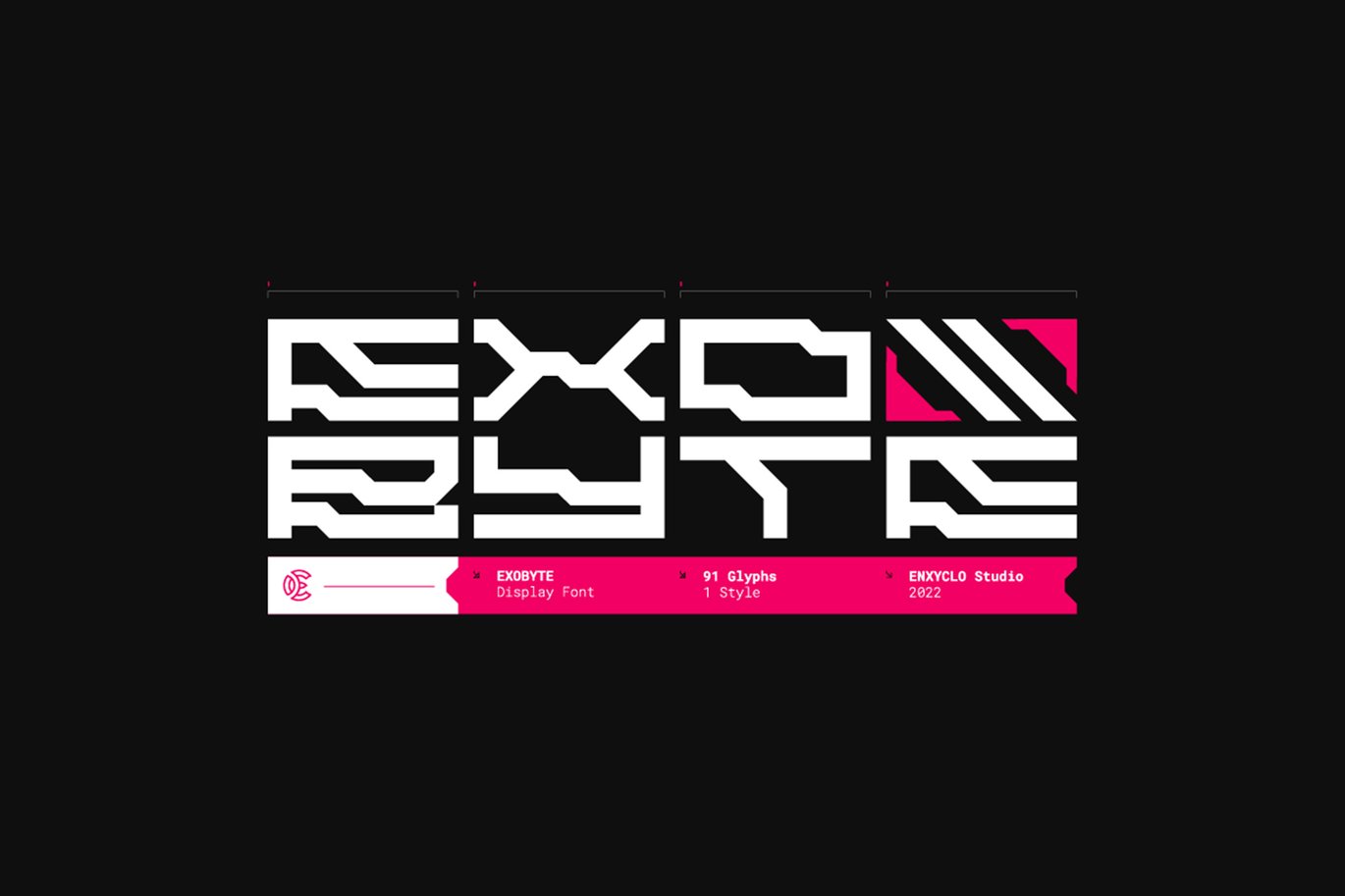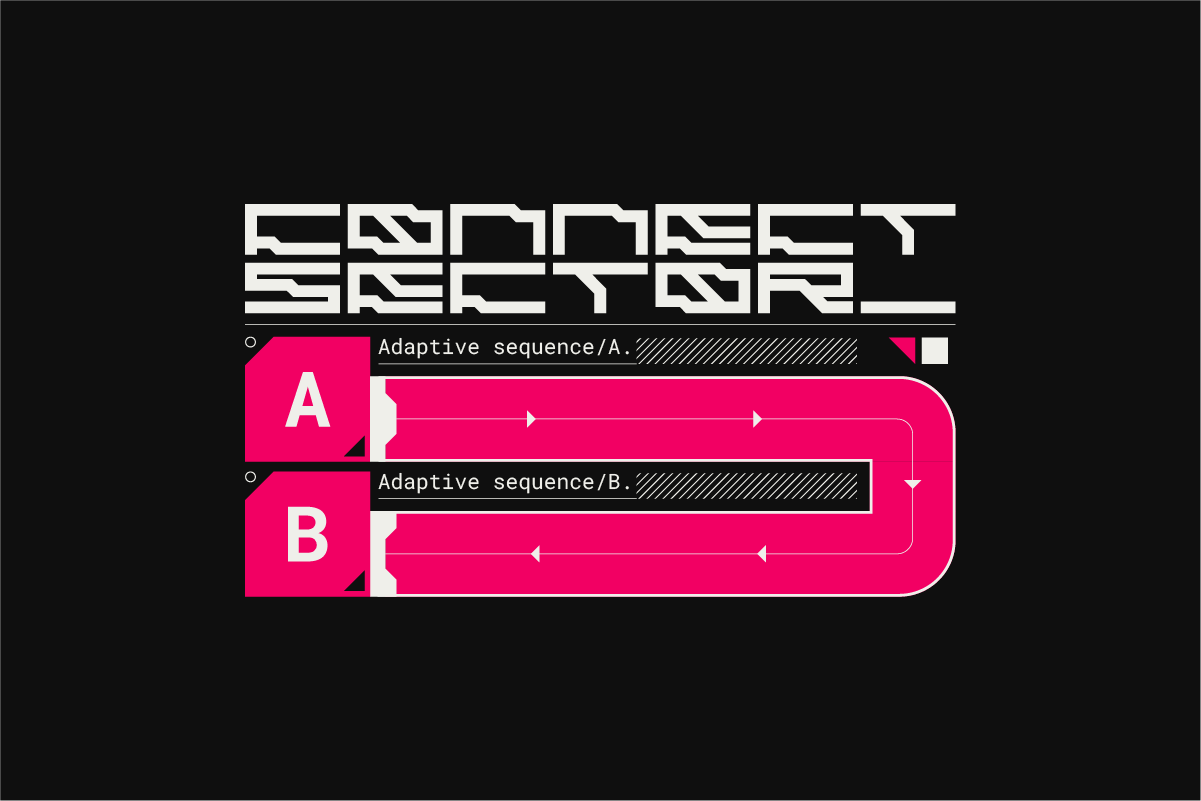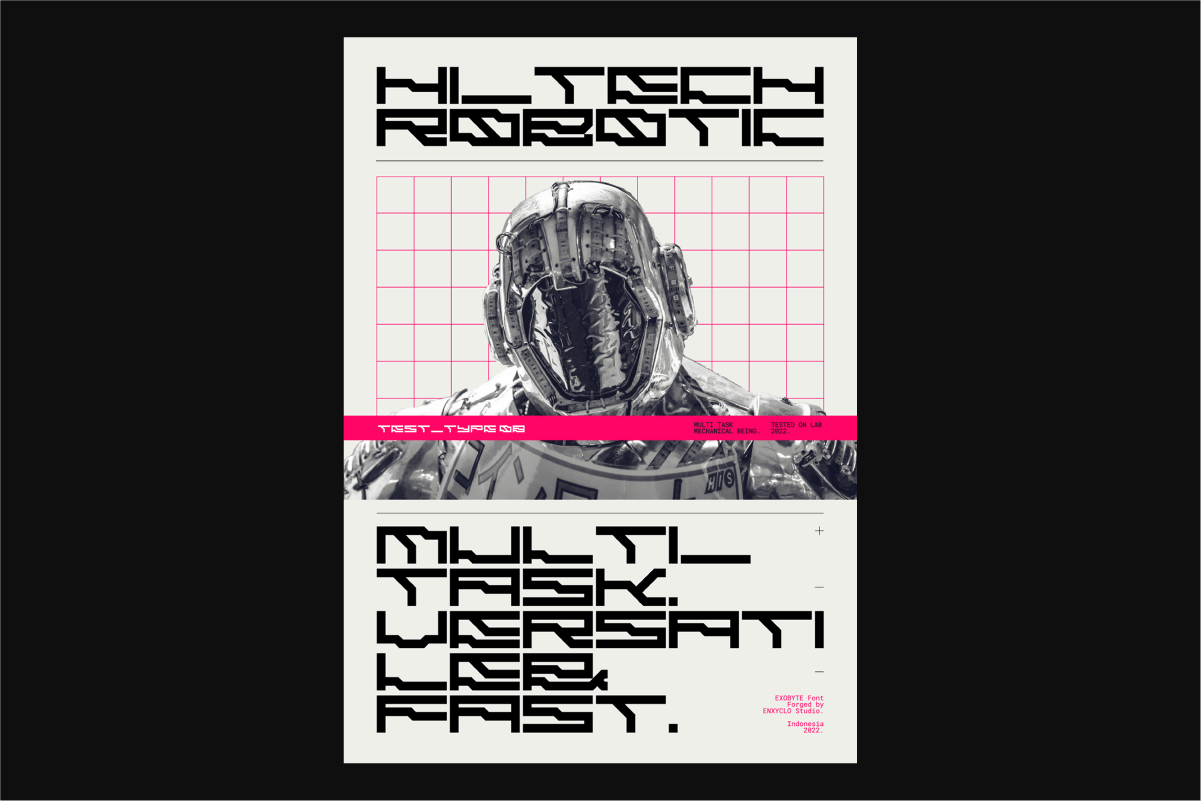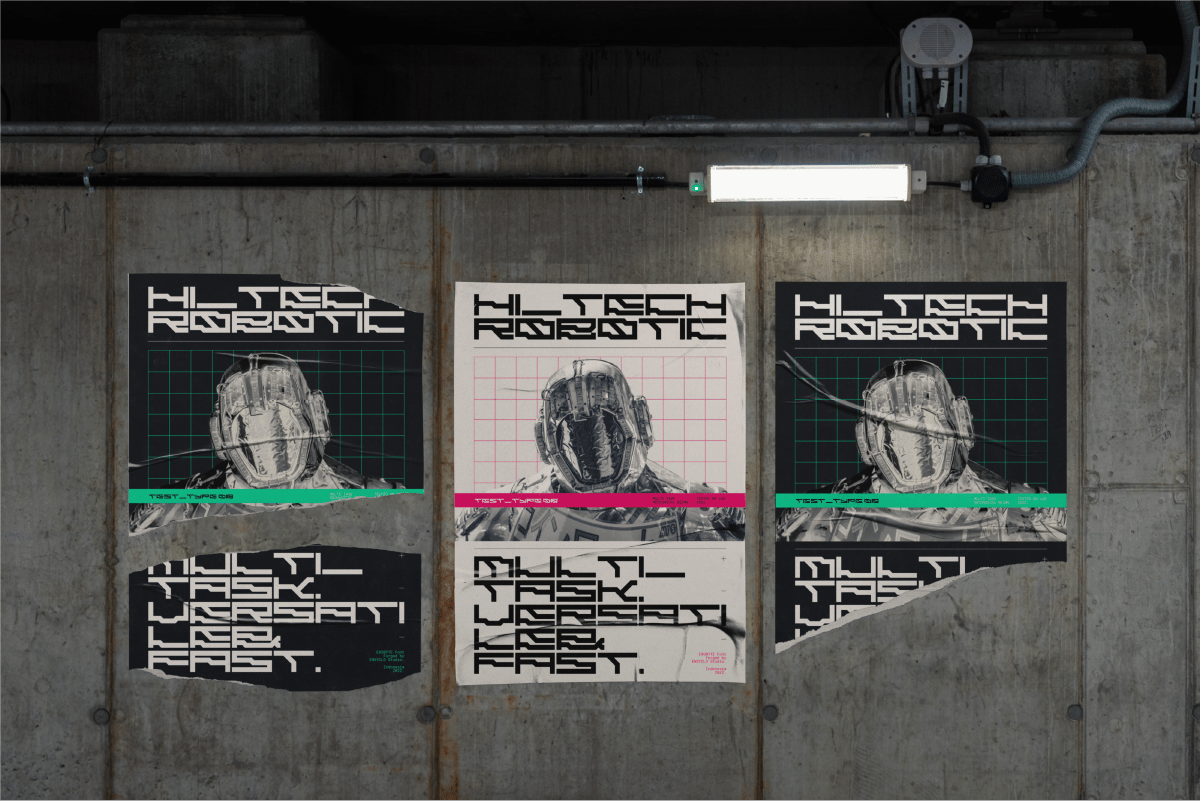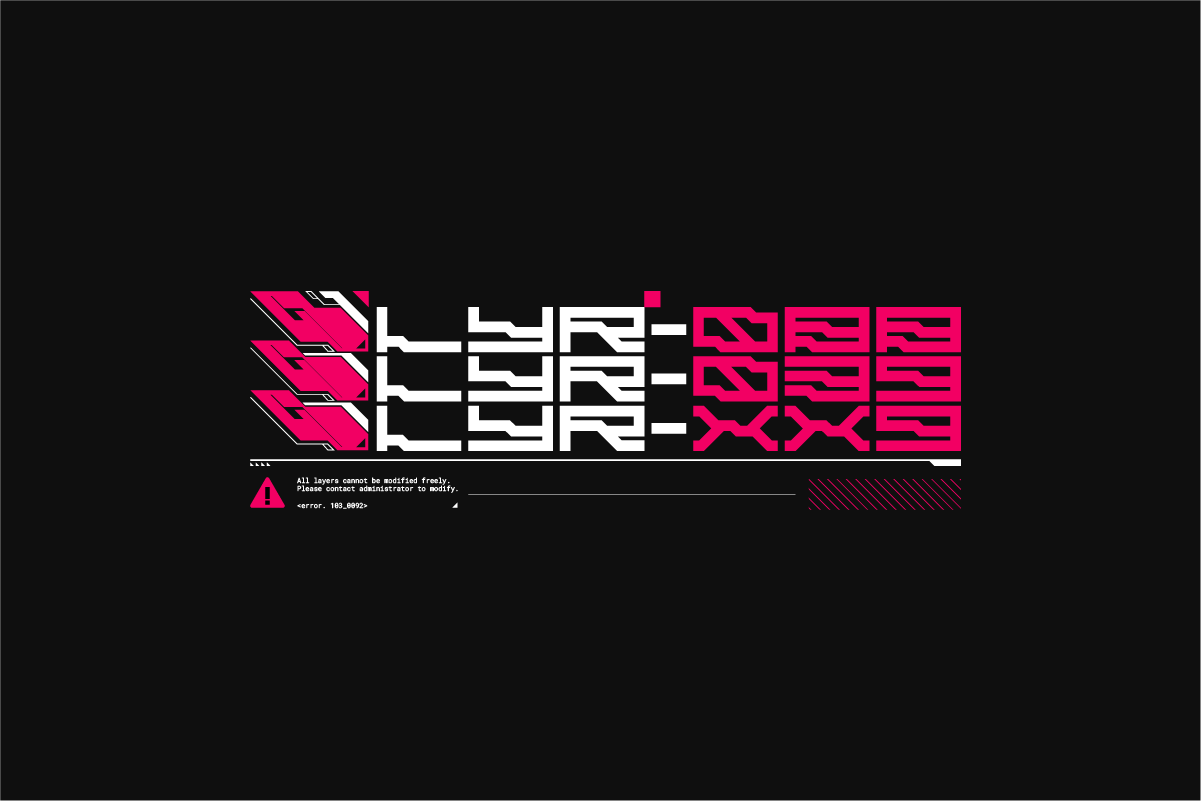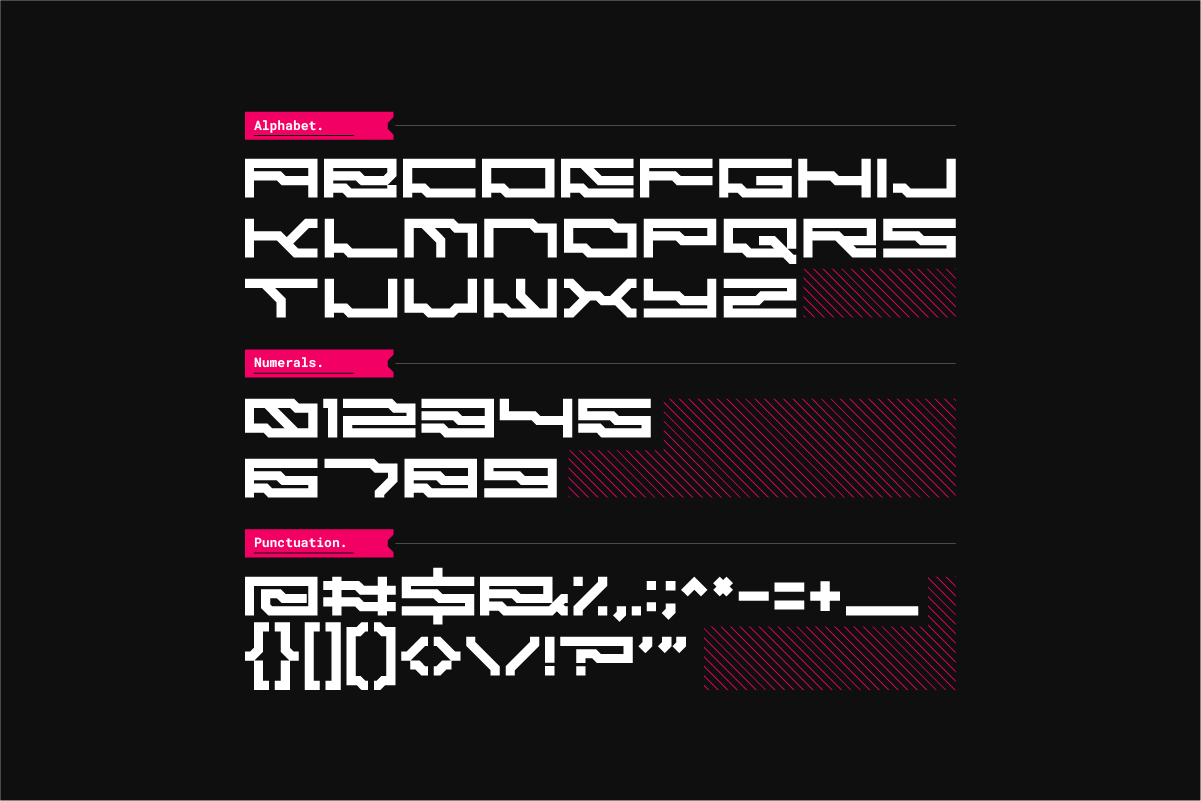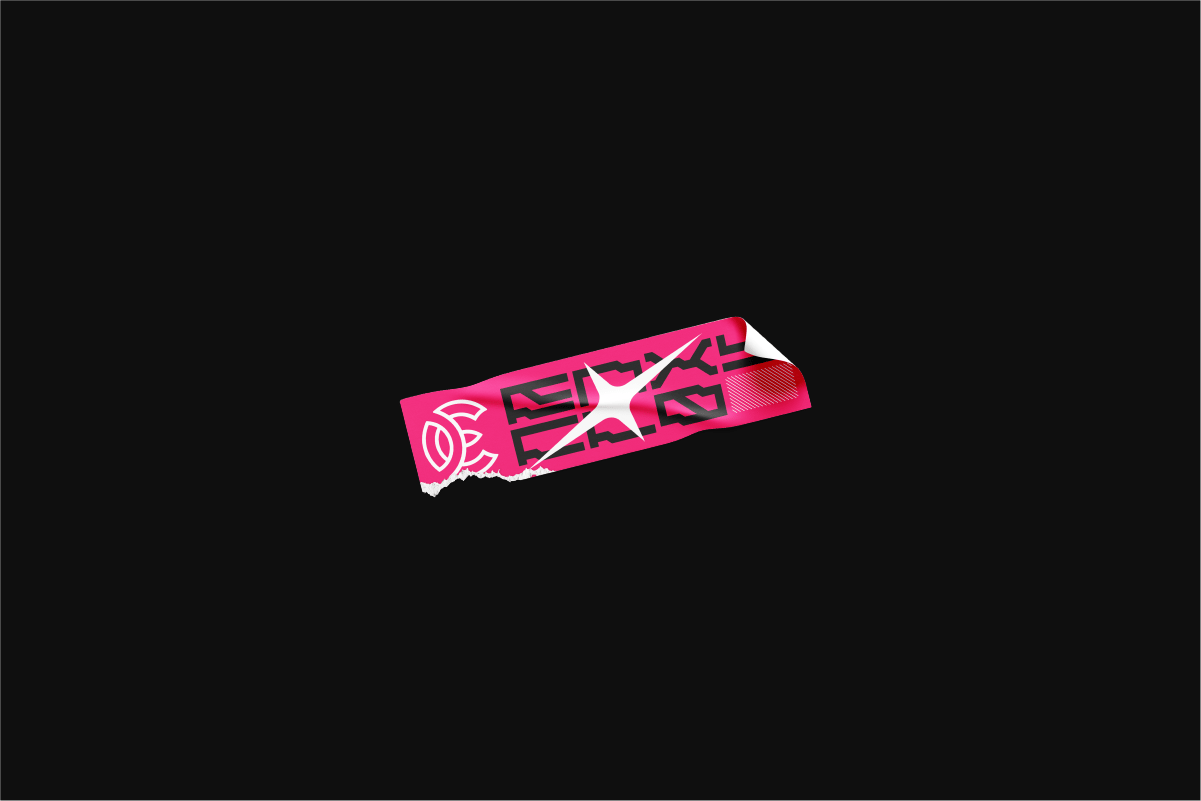
Exobyte – Futuristic Cyberpunk Techno Display Font
EXOBYTE is futuristic display font. The design of typeface will make your project more powerful and inspiring. With this beautiful futuristic display font, absolutely you can make your project stand out from the rest. See the previews above to get some inspiration on how to use them.
- Contains 91 Glyphs
- Uppercase, Numeral, Punctuation & Symbol